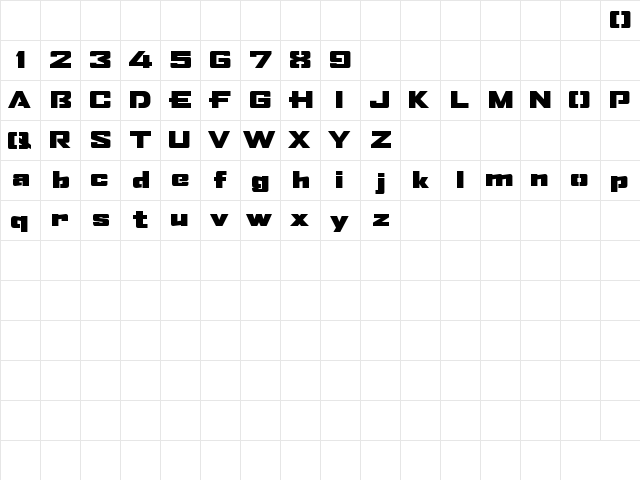
Sports Soldier Field Custom Regular
Design Context for Sports Soldier Field Custom Typeface
Sports Soldier Field Custom draws on military and industrial lettering traditions, with forms that communicate strength and precision.
Designed for tactical branding, military-inspired apparel, action game UI, and utility-focused signage.
Font Pairing: Use alongside a condensed or geometric sans for supporting copy — keep the pairing bold, functional, and free of ornament.
Pro Tip: Use Sports Soldier Field Custom at medium-to-large sizes where its utilitarian structure can be appreciated — the character detail gets lost at small sizes.